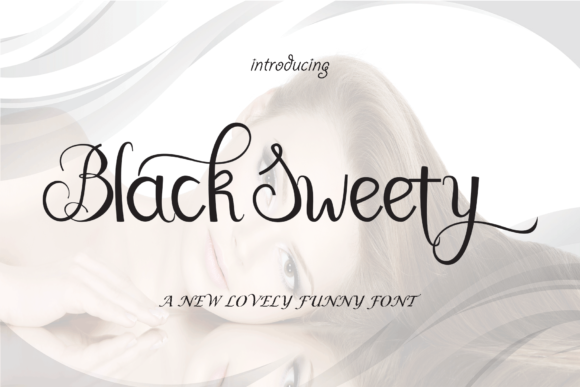
The Sweet Spot: Discovering the Charm of Black Sweety Font
I’ll never forget the moment I stumbled upon the perfect font for a client’s wedding invitation project. I had been searching for what felt like hours, trying out font after font, but nothing seemed quite right. That was until I discovered Black Sweety, a delicate, light, and whimsical script font that stole my heart. In this article, I’ll share my experience with Black Sweety, its features, and how to make the most of this beautiful font.
A Personal Review: What I Love About Black Sweety
So, what makes Black Sweety so special? Here are a few things that I absolutely love:
• ✨ Delicate and whimsical design: Black Sweety has a unique, hand-drawn feel that’s perfect for projects that require a touch of elegance and playfulness.
• ✅ PUA encoded: This means that you can access all of the glyphs and swashes with ease, making it simple to customize your text.
• 💫 Versatility: Black Sweety is suitable for a wide range of projects, from wedding invitations and branding to packaging and digital graphics.
While Black Sweety is an amazing font, there are a few things to keep in mind:
• 🤔 Limited use for body text: Due to its delicate nature, Black Sweety is best suited for headlines, titles, and short paragraphs. For longer texts, you may want to pair it with a more readable font.
The Designer Inspiration Behind Black Sweety
While I couldn’t find any information on the exact designer behind Black Sweety, it’s clear that they were inspired by the world of hand-drawn typography. The font’s delicate lines, whimsical swashes, and elegant letterforms are a testament to the designer’s skill and attention to detail.
What is Black Sweety font best used for? Black Sweety is best used for headlines, titles, and short paragraphs in projects that require a touch of elegance and playfulness, such as wedding invitations, branding, packaging, and digital graphics.